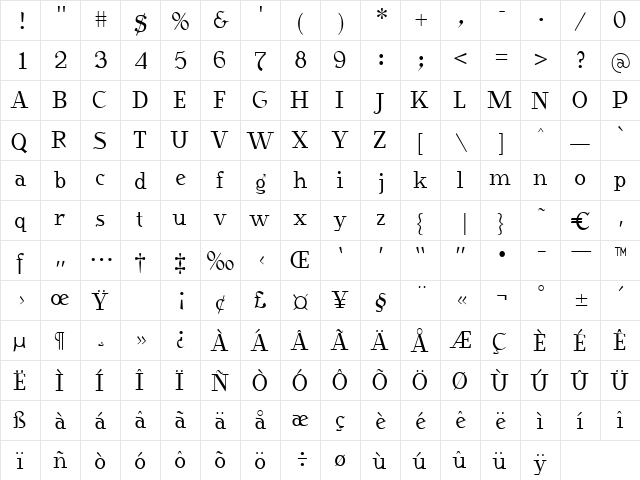
Safran Regular
Design Context for Safran Typeface
Safran takes a measured approach to typography — its balanced proportions and neutral character make it a reliable workhorse for both digital and print work.